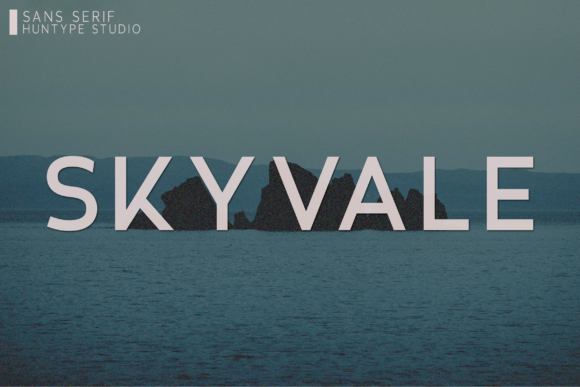
Step into the realm of modernity and discover Skyvale Font, the epitome of sleek sophistication in the realm of sans serif fonts. Crafted with meticulous precision by the renowned Huntype, Skyvale exudes an air of elegance, versatility, and timeless appeal that will transform your creative projects into masterpieces.
With its clean, crisp lines and a hint of contrast, Skyvale Font captivates the eyes, leaving an indelible mark on viewers. Its versatility knows no bounds, seamlessly adapting to a myriad of applications. Envision logos that radiate boldness, branding that speaks volumes, and web headings that command attention – Skyvale Font is the ultimate choice for designers seeking to make a statement.
Whether you're a seasoned design virtuoso or embarking on your creative journey, Skyvale Font is your trusty companion. Its intuitive nature makes it a breeze to use, allowing you to effortlessly bring your visions to life. Unleash your creativity and let Skyvale Font elevate your designs to new heights.
But Skyvale Font is more than just a font; it's an experience that ignites emotions and propels your designs to the forefront. Its contemporary aesthetic resonates with modern sensibilities, creating a captivating connection with your audience. Embrace the power of Skyvale Font and embark on a design odyssey that will leave a lasting impression.